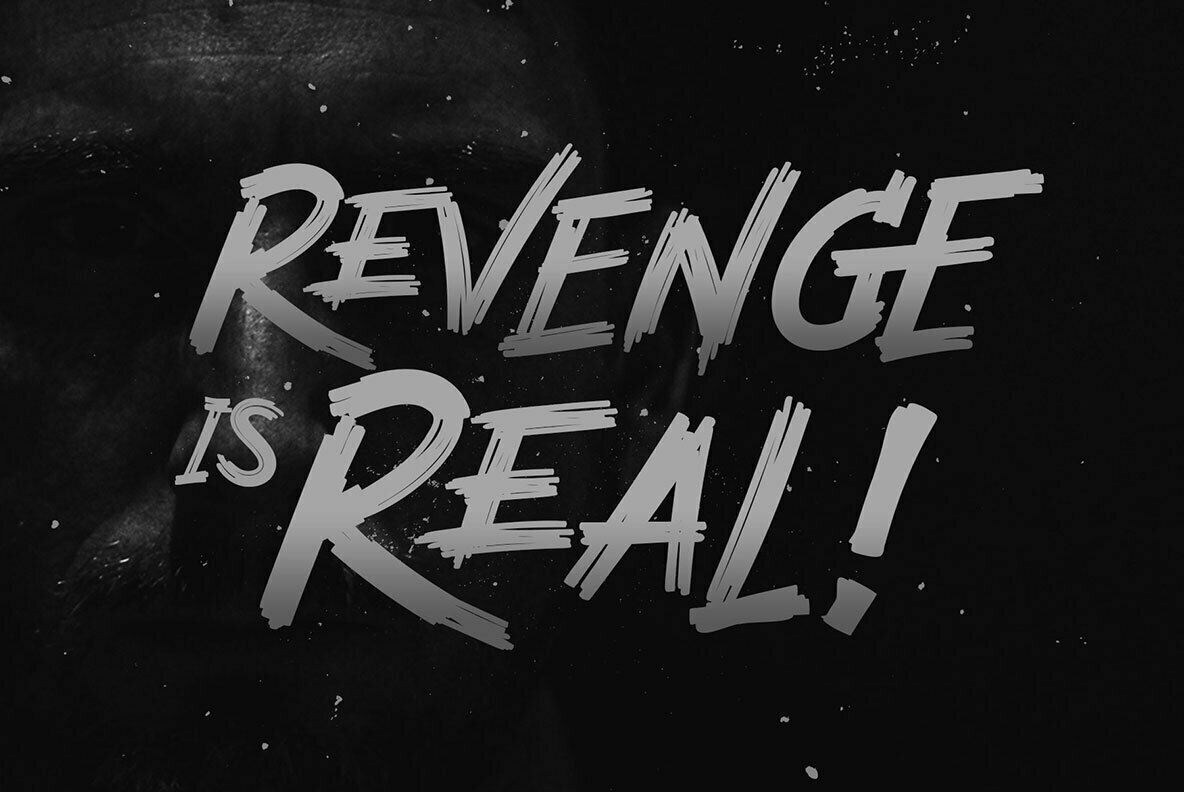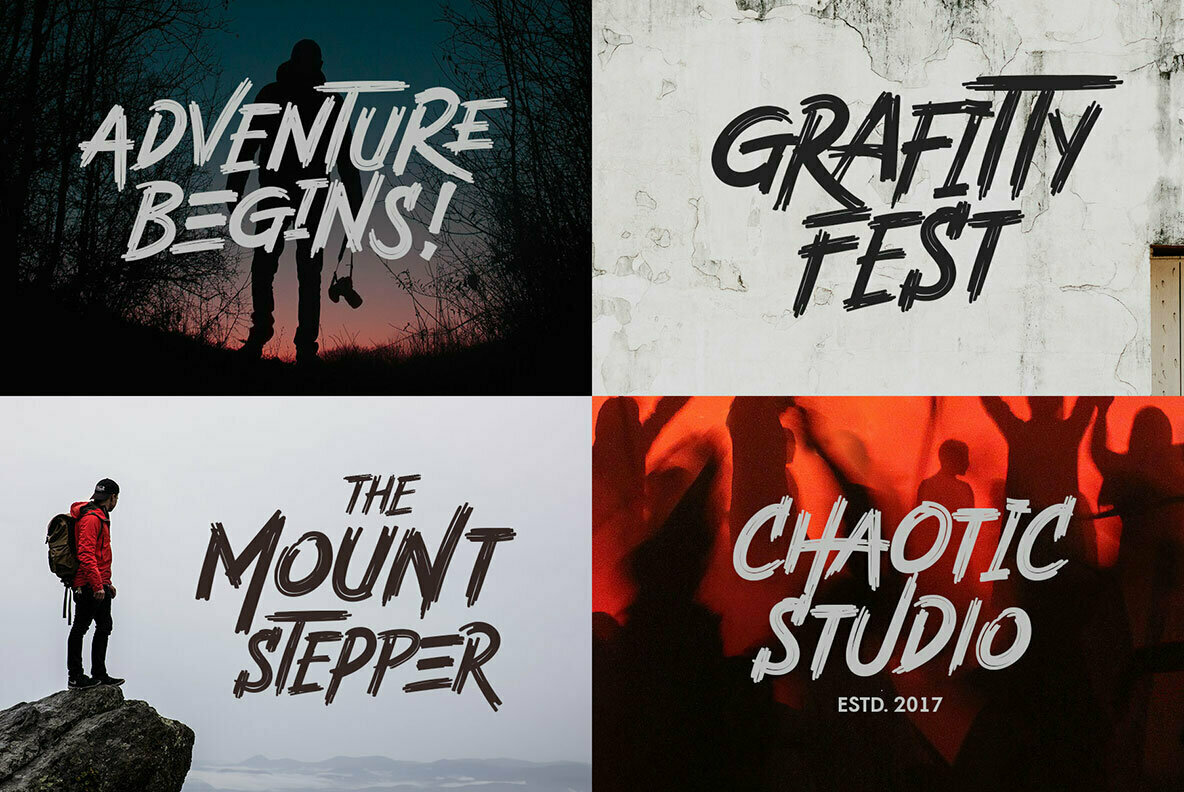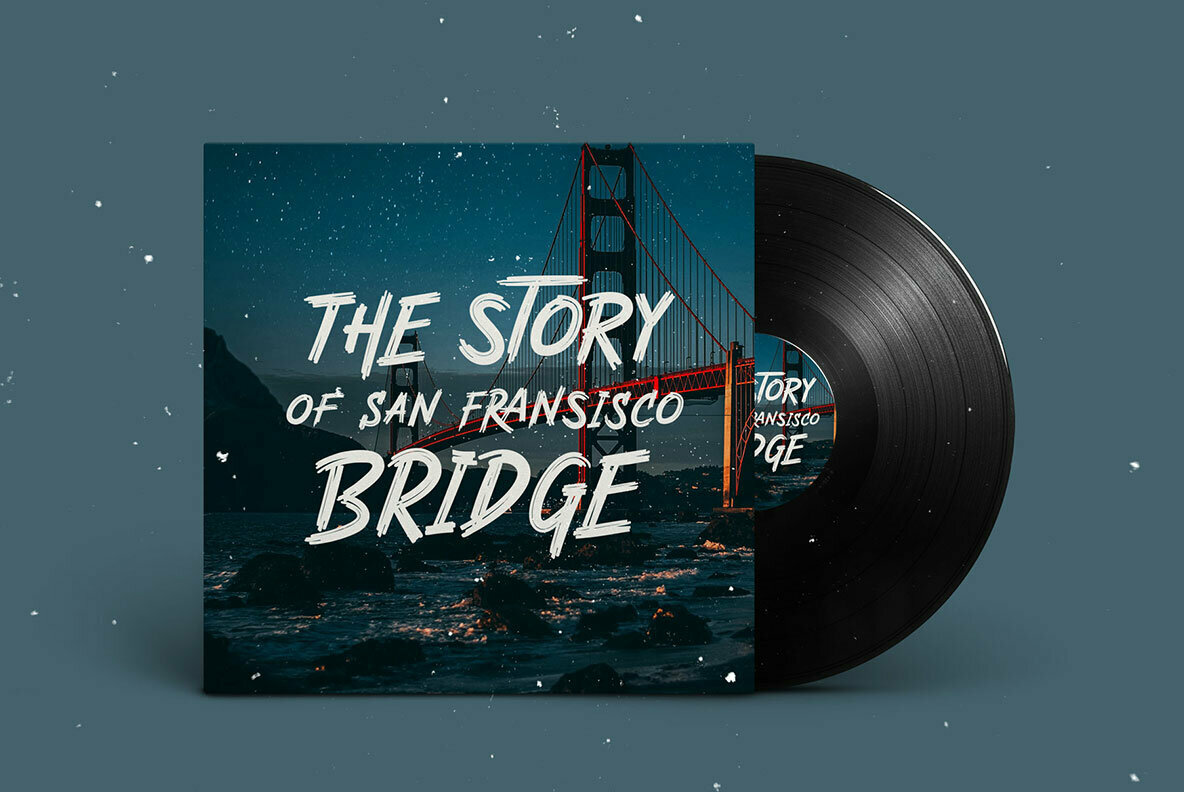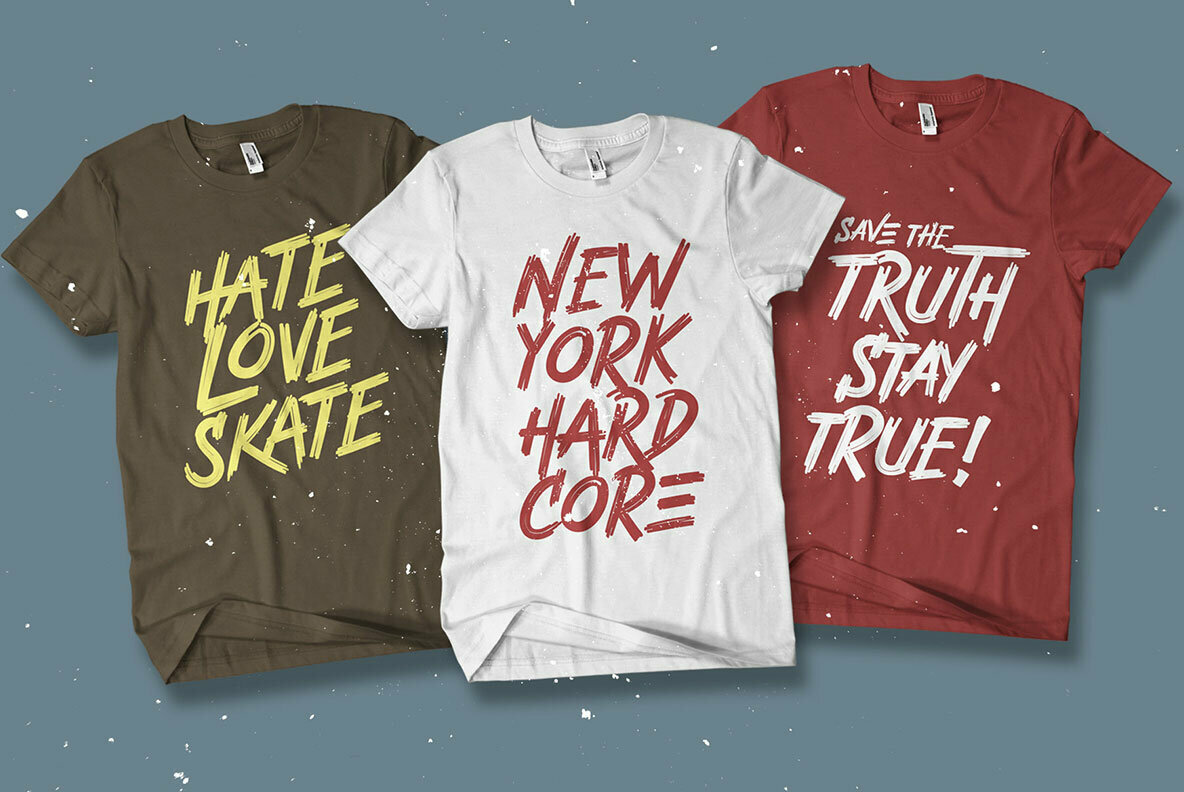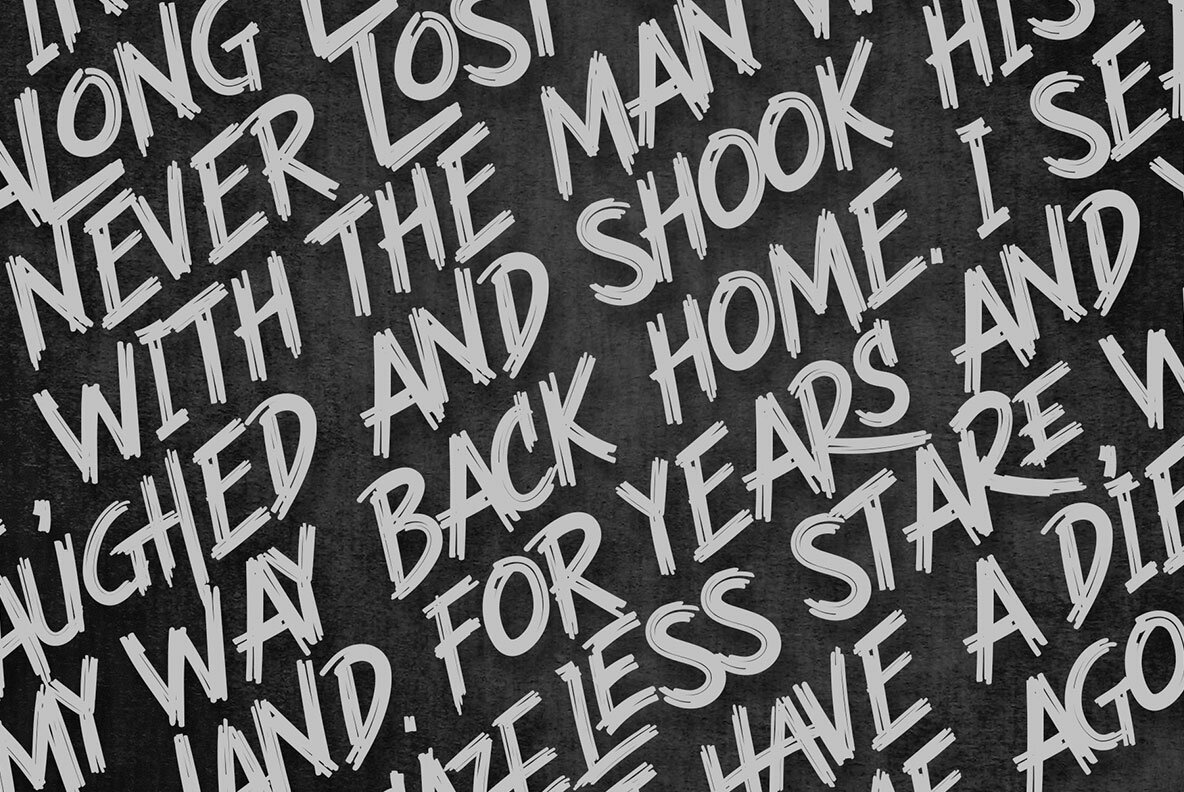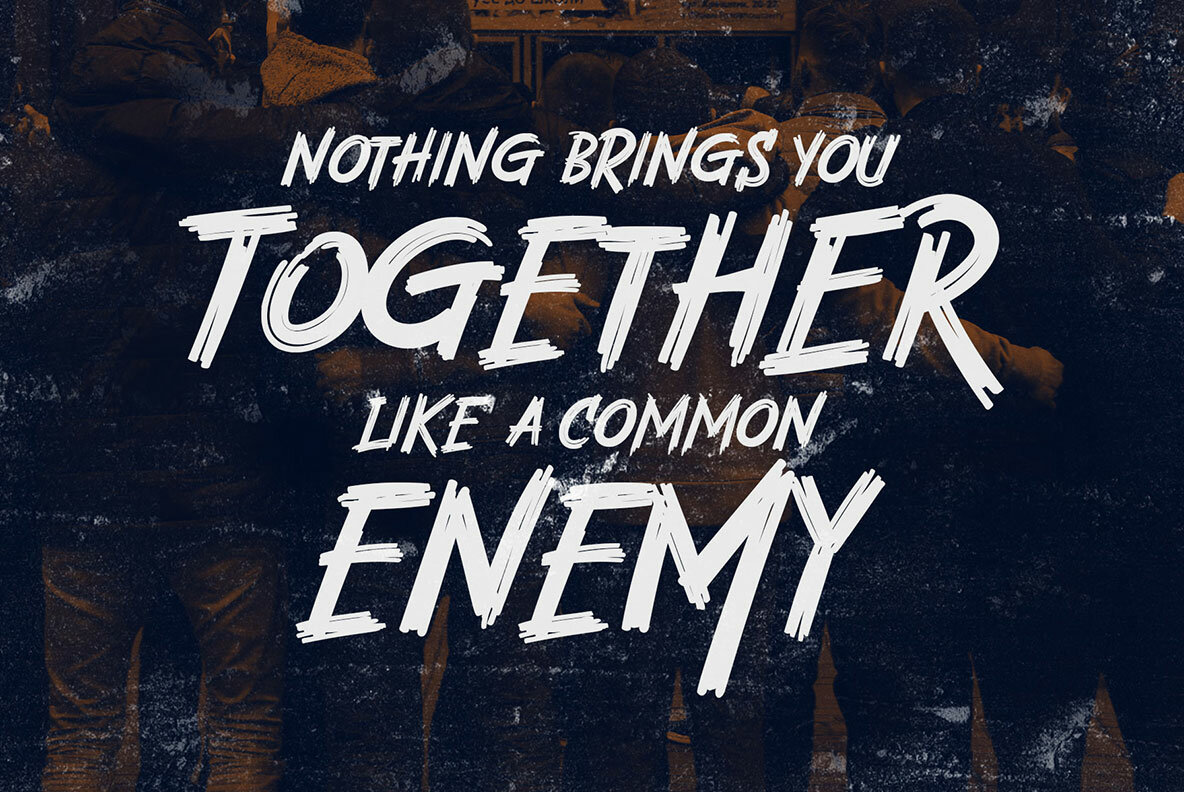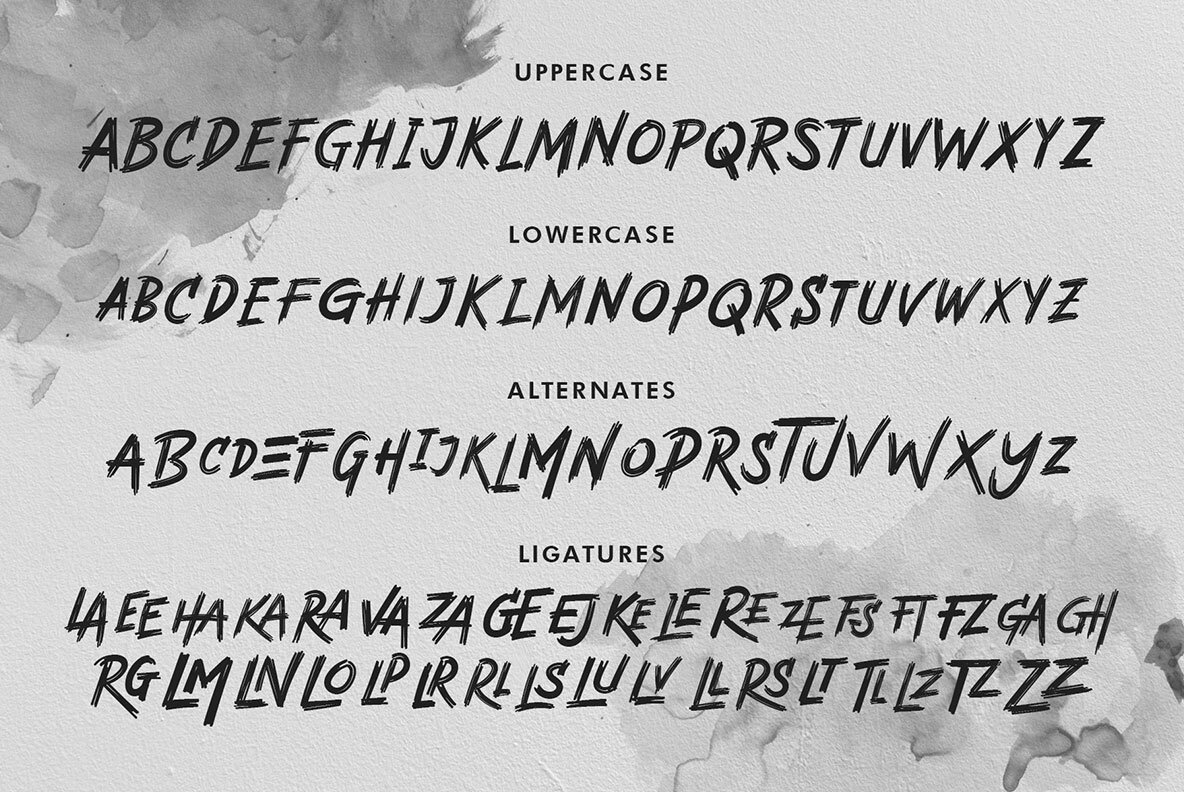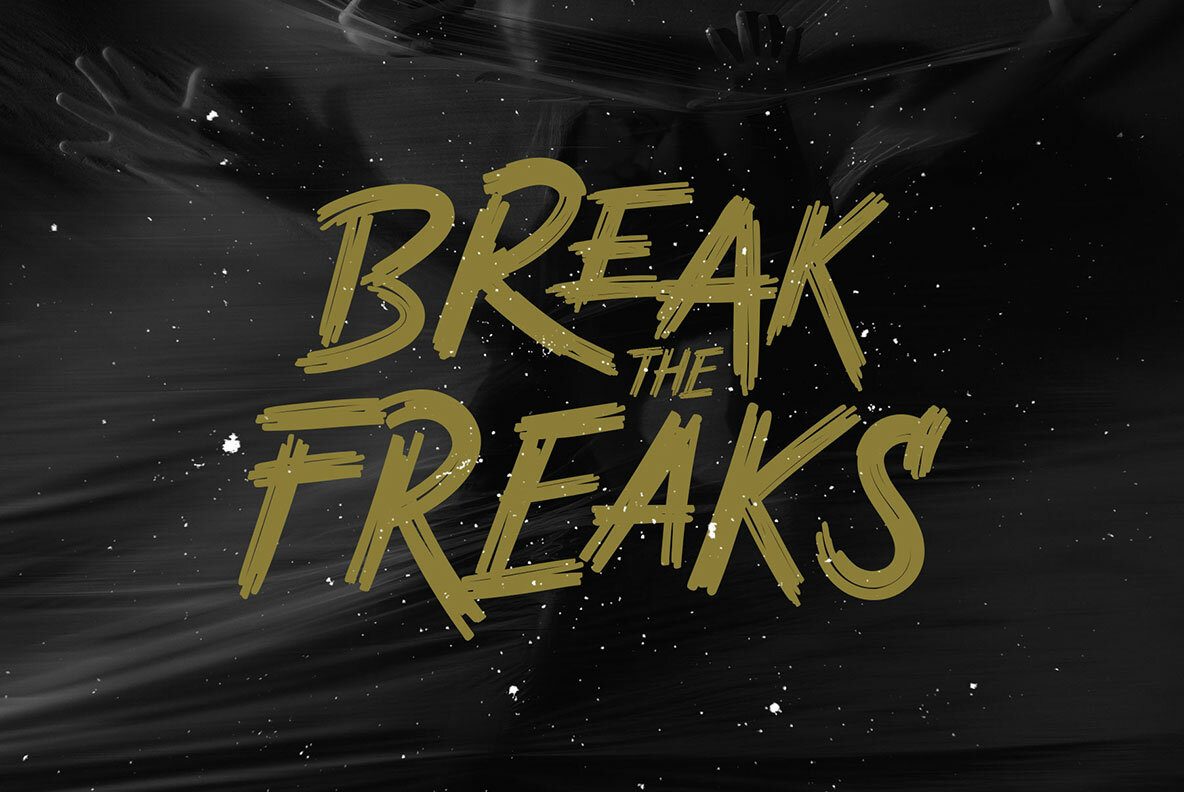
Rashkey Font
Rashkey
Rashkey brings the raw energy of hand-brushed typography to your design projects. This freestyle brush font reflects a spontaneous artistic flair while offering versatility and impact. Its all-caps structure lets you seamlessly mix uppercase and lowercase letters, allowing creative experimentation to achieve the perfect typographic balance. Whether you're designing logos, apparel, posters, or album covers, Rashkey conveys movement and excitement.Rashkey: A Dynamic Freestyle Brush Font